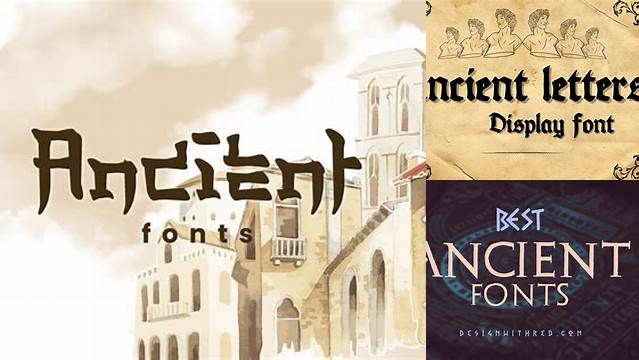
Ancient Font Generator: Create Historical Text
Hey guys! Ever wanted to give your text that old-school, ancient vibe? You know, make it look like it's straight out of a history book or an epic fantasy novel? Well, you're in luck! With an ancient fonts generator, you can transform your everyday text into something truly special. Let's dive into the world of historical typography and see what makes these generators so cool.
What is an Ancient Font Generator?
So, what exactly is an ancient font generator? Simply put, it's a tool that allows you to convert regular text into fonts that resemble those used in ancient times. Think of it as a time machine for your words! These generators offer a variety of fonts inspired by different historical periods and cultures. Whether you're into the elegant scripts of ancient Rome, the mysterious runes of the Vikings, or the intricate characters of ancient Egypt, there's likely a font generator out there that can bring your vision to life.
The beauty of an ancient font generator lies in its simplicity and accessibility. You don't need to be a professional designer or have any special software to use one. Most of these tools are web-based, meaning you can access them directly from your browser on any device. All you have to do is type in your text, choose your desired font, and voilà ! Your text is instantly transformed. It's a fantastic way to add a touch of authenticity and character to your projects, whether they're for personal enjoyment or professional use.
But why stop there? The best ancient font generators often come with customization options that allow you to tweak the appearance of your text even further. You might be able to adjust the size, color, spacing, and even add special effects like shadows or textures. This level of control ensures that you can create truly unique and eye-catching designs that perfectly match your specific needs. Imagine creating stunning social media graphics, personalized invitations, or even adding a historical flair to your website. The possibilities are endless!
Why Use Ancient Fonts?
Okay, so why should you even bother using ancient fonts in the first place? What's the big deal? Well, there are plenty of reasons why these fonts are a fantastic choice for a variety of projects. Let's break down some of the key benefits:
- Evokes a Sense of History and Nostalgia: Ancient fonts have a unique ability to transport us back in time. They can evoke feelings of history, nostalgia, and wonder. By using these fonts, you can add a sense of authenticity and depth to your designs, making them more engaging and memorable.
- Adds a Unique and Distinctive Look: In a world of generic and mass-produced designs, ancient fonts can help you stand out from the crowd. Their distinctive and often ornate characters can add a touch of elegance and sophistication to your projects, setting them apart from the rest.
- Perfect for Themed Projects: If you're working on a project with a historical or fantasy theme, ancient fonts are an absolute must. They can help you create a cohesive and immersive experience for your audience, whether you're designing a book cover, a video game, or a marketing campaign.
- Versatile and Adaptable: Despite their historical roots, ancient fonts can be surprisingly versatile. They can be used in a wide range of applications, from formal invitations to casual social media posts. With a little creativity, you can find ways to incorporate them into almost any design project.
Examples of Ancient Fonts
To give you a better idea of what's out there, let's take a look at some examples of popular ancient fonts:
- Roman Capitals: Inspired by the inscriptions found on ancient Roman monuments, these fonts are characterized by their clean lines, balanced proportions, and timeless elegance. They're a great choice for adding a touch of sophistication to your designs.
- Runes: Derived from the alphabets used by ancient Germanic peoples, runes have a mystical and enigmatic quality. They're perfect for projects with a Viking or fantasy theme, adding an air of mystery and intrigue.
- Hieroglyphs: The ancient Egyptian writing system, hieroglyphs, are instantly recognizable and visually striking. They can add a touch of exoticism and grandeur to your designs, making them truly unforgettable.
- Cuneiform: One of the earliest known writing systems, cuneiform was used by the ancient Sumerians and other Mesopotamian civilizations. Its wedge-shaped characters have a unique and distinctive look that can add a sense of antiquity to your projects.
- Greek Alphabet: The foundation of many modern alphabets, the Greek alphabet has a timeless and classic appeal. Its elegant and balanced characters make it a great choice for a wide range of design applications.
How to Use an Ancient Font Generator
Alright, so you're sold on the idea of using ancient fonts. Great! Now, let's talk about how to actually use an ancient font generator. The process is usually pretty straightforward, but here's a step-by-step guide to get you started: